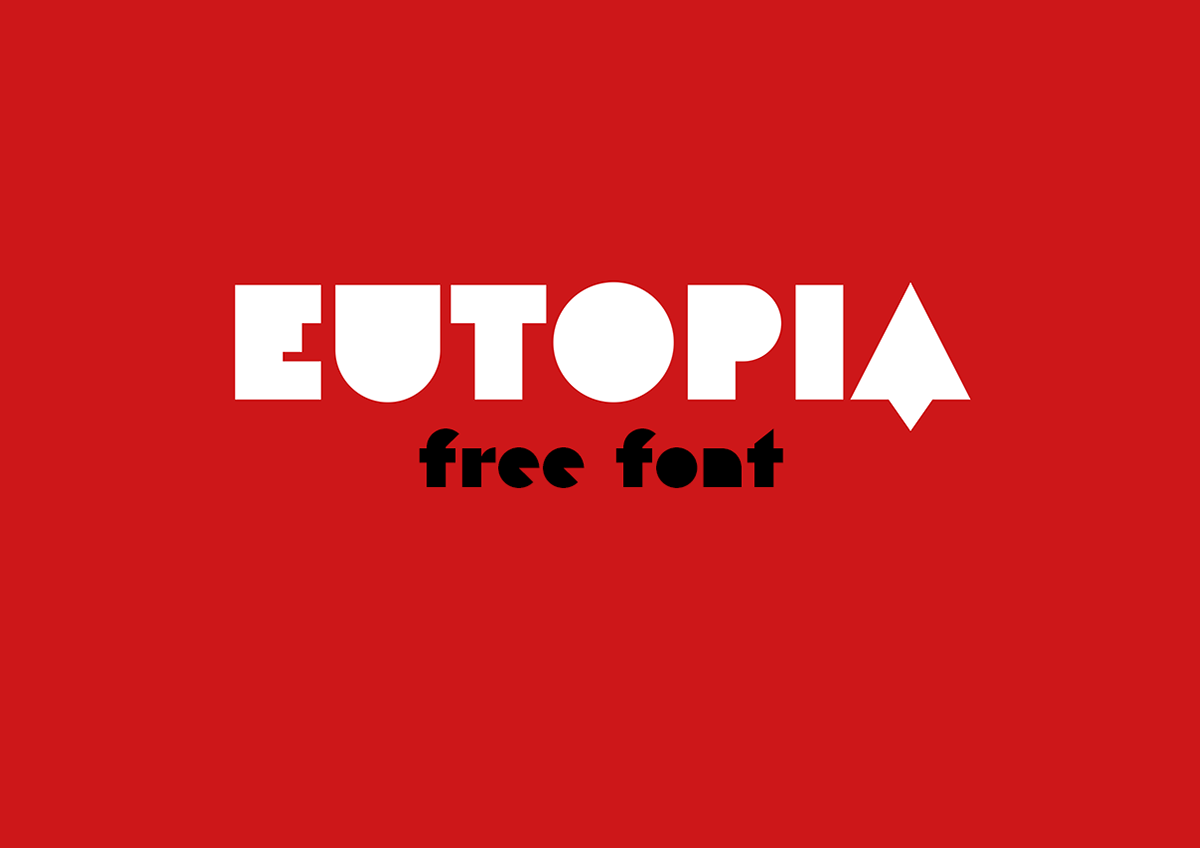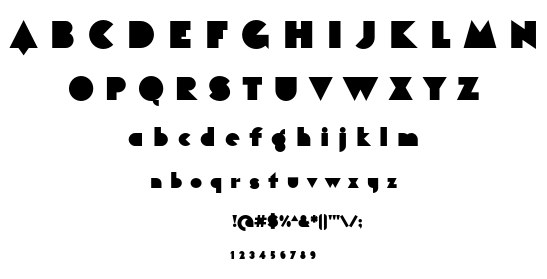
I was inspired by the letters of the mythical “Ideales” tobacco package, and from other 1920s geometric models. Eutopia has been born with the aim to be useful for the current graphic communications. For that purpose almost 400 glyphs have been designed and more than 2100 kerning pairs have been defined. The multiple diacritic signs have been prepared to allow a multilingual use in most of the languages based on latin alphabet. The OpenType features have been used to get alternate characters of “A” and “g”, and also ligatures, lowercase numbers and other tipographic refinements.